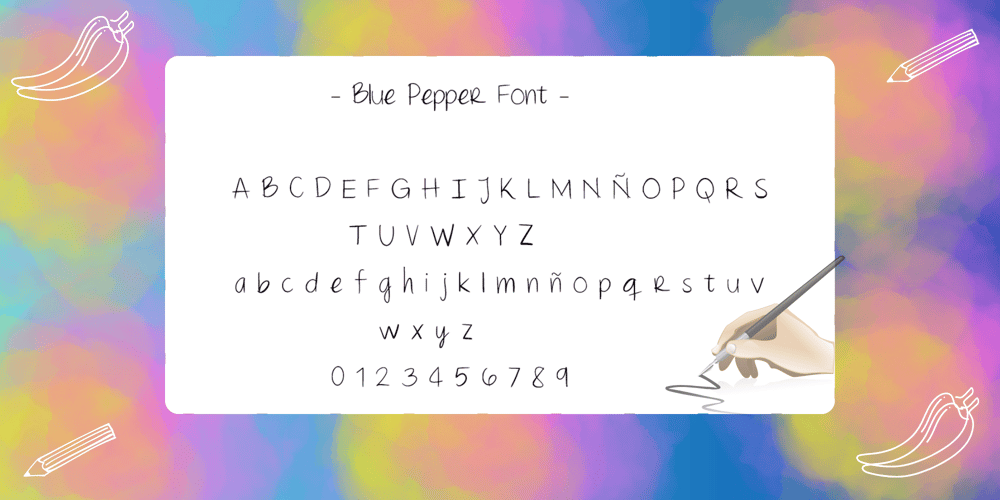
Blue Pepper Font Family was designed by Hector Rivas and published by Hecttorpaiz. Blue Pepper contains 1 styles and family package options. Introducing Blue Pepper โ where sophistication meets versatility in typography. Crafted with meticulous attention to detail, Blue Pepper offers a unique blend of elegance and functionality, making it an essential addition to any designer’s toolkit.With its sleek and modern aesthetic, Blue Pepper is ideal for a wide range of design projects. From editorial layouts to branding materials, website headers to packaging designs, this font effortlessly elevates any composition with its refined charm. Its clean lines and balanced proportions ensure readability across various mediums, while its subtle yet distinctive flourishes add a touch of personality to every project.What sets Blue Pepper apart is its versatility. Available in a variety of weights and styles, including regular, bold, italic, and more, Blue Pepper offers endless possibilities for creative expression. Whether you’re crafting a minimalist logo or designing an eye-catching poster, this font adapts effortlessly to suit your vision.Blue Pepper also plays well with others. Its compatibility with related font families and ability to seamlessly combine with complementary typefaces make it a go-to choice for designers seeking harmony and coherence in their projects. Pair it with sans-serifs for a modern twist, or combine it with serif fonts for a timeless elegance โ the options are limitless.Functionality is key with Blue Pepper. With extensive language support and a diverse range of characters, including ligatures and alternates, this font ensures seamless integration into any design workflow. Whether you’re designing for print or web, English or multilingual projects, Blue Pepper delivers consistent and professional results every time.Elevate your designs with Blue Pepper โ the epitome of elegance and versatility in typography. Discover why designers worldwide are turning to Blue Pepper to bring their creative visions to life. Purchase your license today on MyFonts.com and unlock the full potential of your designs with Blue Pepper.